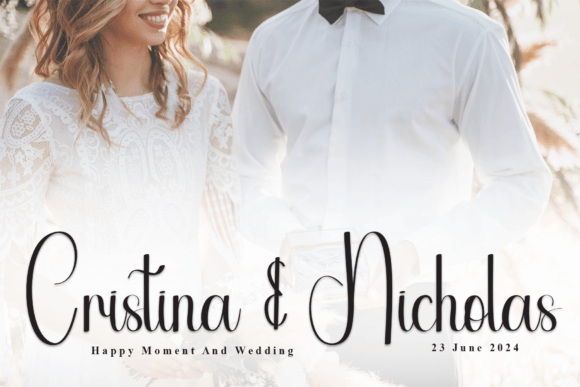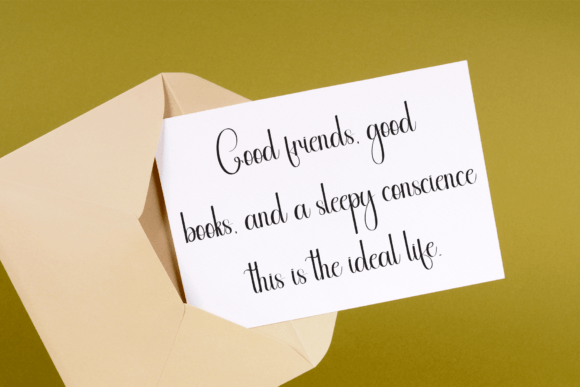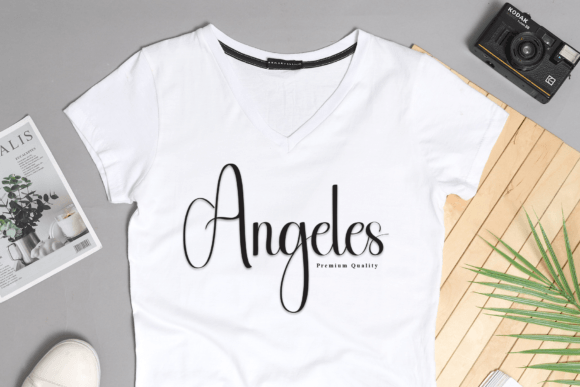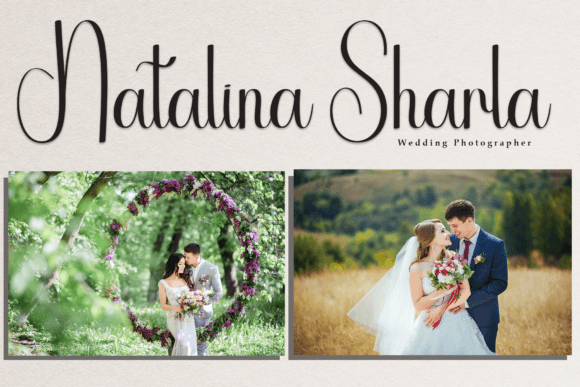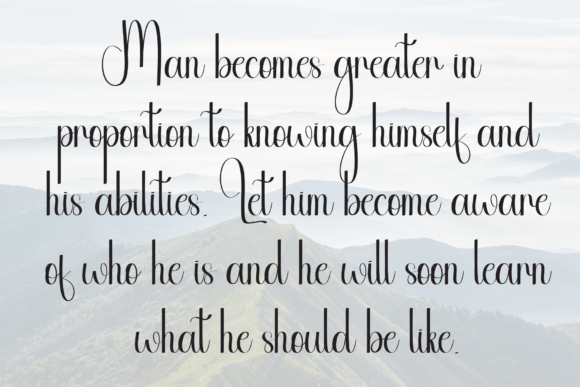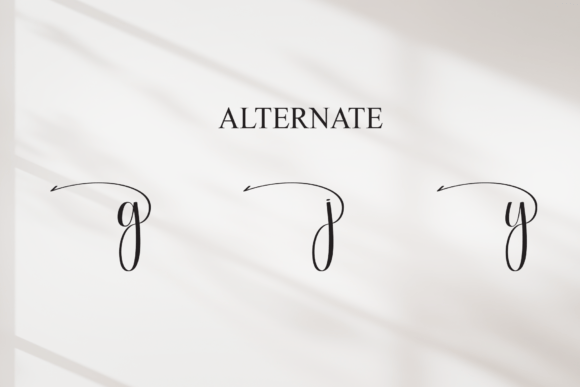
Introducing Already Font: The Sweet and Friendly Handwritten Font for Your Design Needs
Are you a designer or crafter looking for a font that can add a touch of sweetness and friendliness to your designs? Look no further than Already Font! This beautiful handwritten font is perfect for creating wedding invitations, cards, and other designs that require a fun and playful touch.
What is Already Font?
Already Font is a modern handwritten font that is designed to bring a sense of warmth and approachability to your designs. With its sweet and friendly letterforms, this font is ideal for creating designs that are both visually appealing and engaging. Whether you’re designing a wedding invitation, a greeting card, or a social media graphic, Already Font is the perfect choice.
Key Features of Already Font
- Cute and Fun: Already Font is a playful font that is designed to add a touch of fun to your designs. Its sweet letterforms and friendly vibe make it perfect for creating designs that are both whimsical and charming.
- Handwritten Style: This font has a beautiful handwritten style that gives it a personal and organic feel. It’s perfect for creating designs that look like they were written with love and care.
- Versatile: Already Font is a versatile font that can be used for a wide range of design projects. Whether you’re designing a wedding invitation, a children’s book, or a social media graphic, this font is the perfect choice.
- Easily Readable: Despite its playful style, Already Font is easily readable, making it perfect for designs that require a clear and concise message.
Use Cases for Already Font
Already Font is a versatile font that can be used for a wide range of design projects. Here are some use cases where this font shines:
- Wedding Invitations: Already Font is perfect for creating beautiful and elegant wedding invitations. Its sweet and friendly style makes it ideal for formal and informal wedding designs.
- Greeting Cards: This font is also great for creating greeting cards for special occasions such as birthdays, holidays, and anniversaries.
- Social Media Graphics: Already Font can be used to create engaging social media graphics that are both visually appealing and easy to read.
- Children’s Books: This font is perfect for creating children’s books that require a playful and engaging font.
Why Choose Already Font?
There are many fonts available that can add a touch of sweetness and friendliness to your designs. So, why choose Already Font? Here are some reasons why:
- Unique Style: Already Font has a unique style that sets it apart from other fonts. Its sweet and friendly letterforms make it perfect for designs that require a personal touch.
- High-Quality: Already Font is a high-quality font that is designed to look great on any device.
In conclusion, Already Font is a sweet and friendly handwritten font that is perfect for designers and crafters who want to add a touch of fun and playfulness to their designs. With its unique style, ease of use, and high-quality design, this font is an excellent choice for a wide range of design projects. Whether you’re designing a wedding invitation, a greeting card, or a social media graphic, Already Font is the perfect choice.